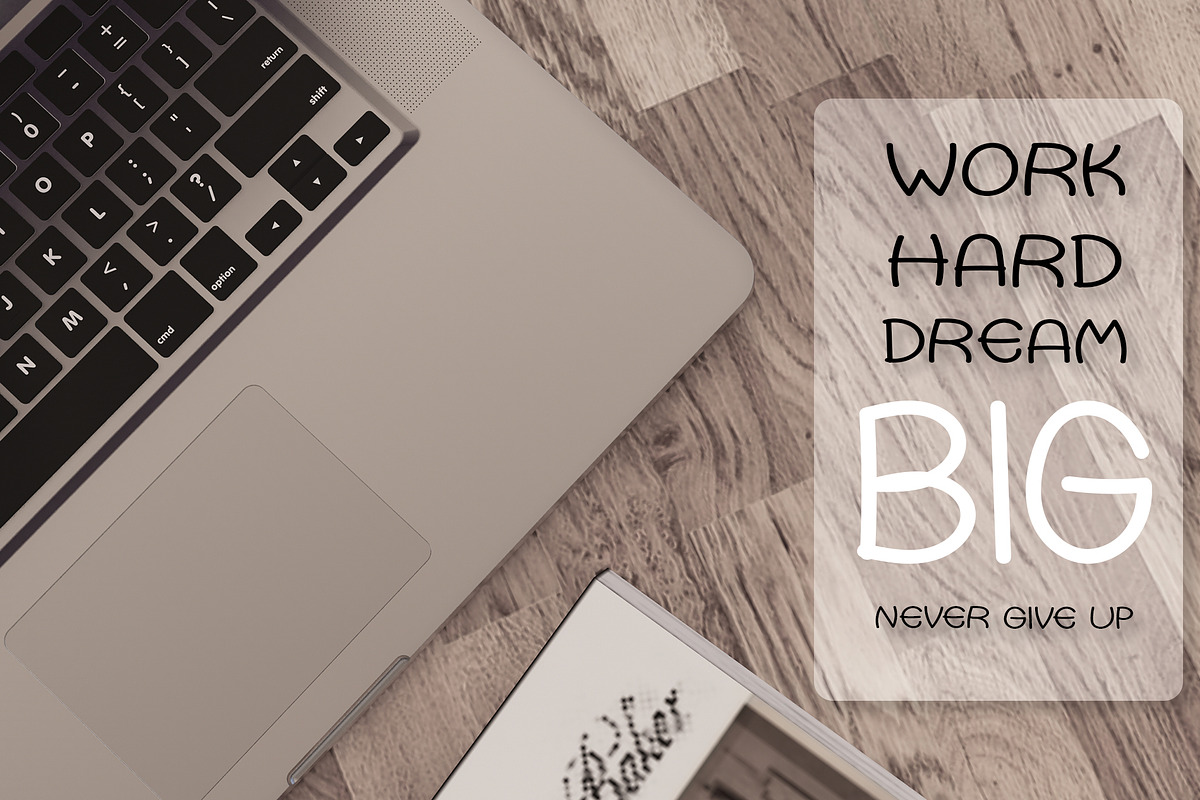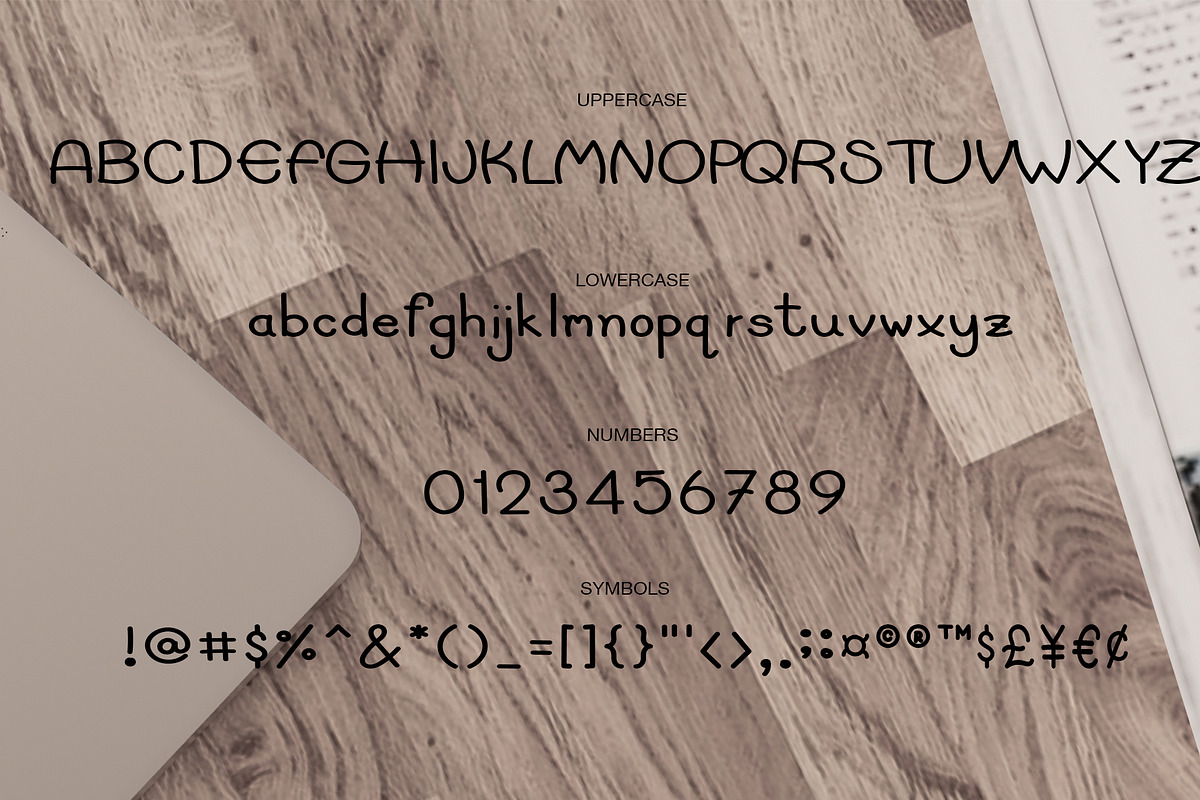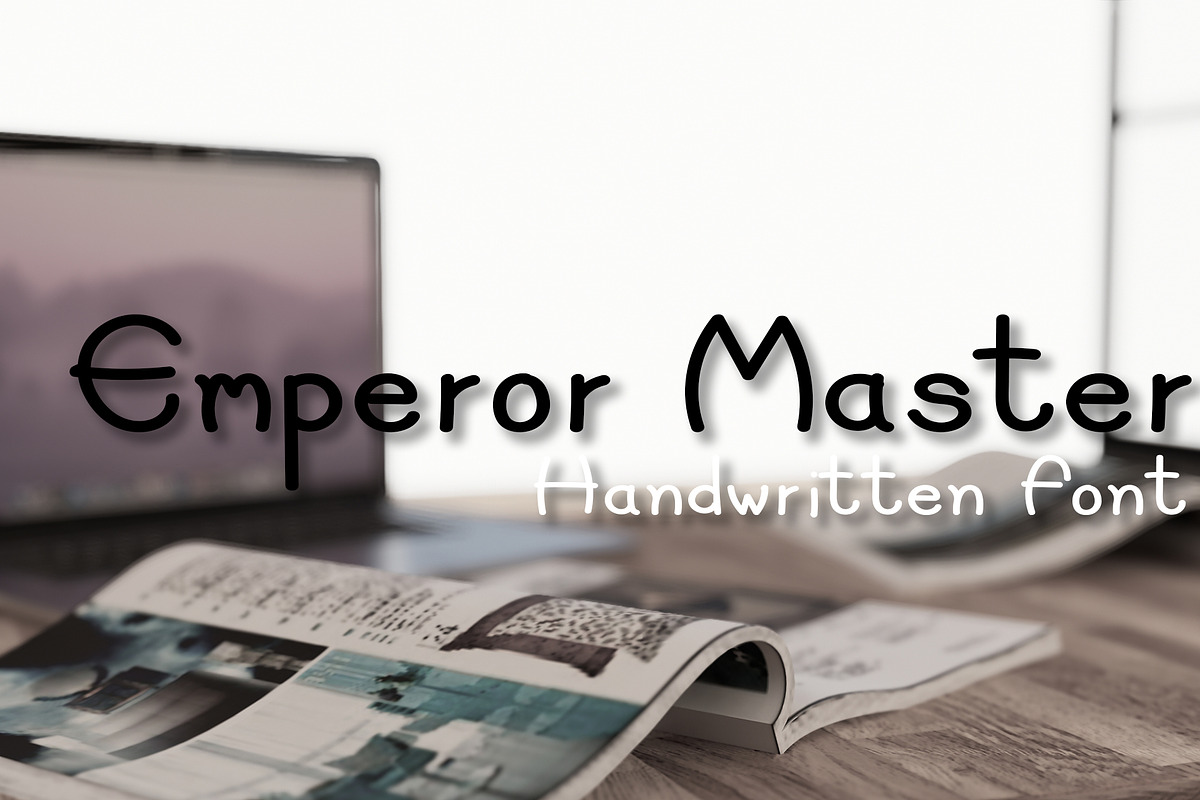
Emperor Master font
The Emperor Master font is a handwriting font that looks firm, calm, and perfect for supporting the article. Or highlight the headings or as you want them to be used. Thank you.
Why Emperor Master font is worth a look